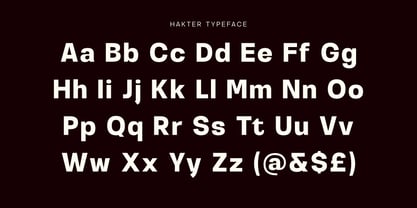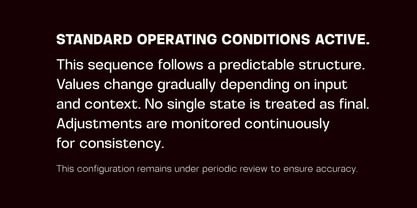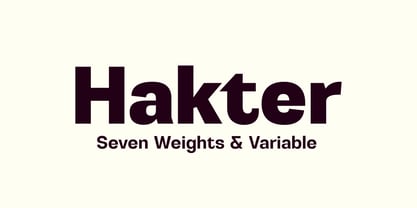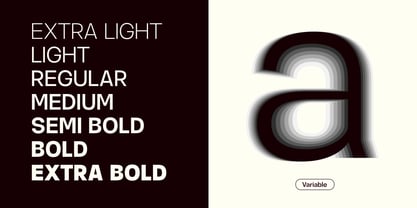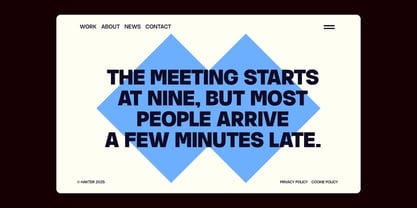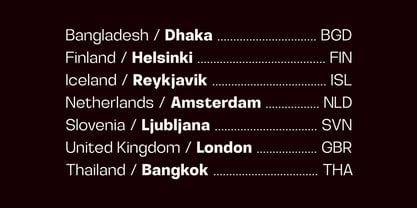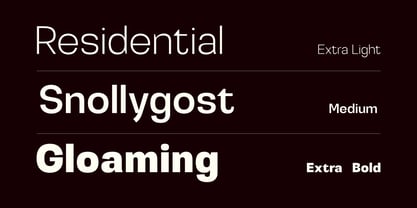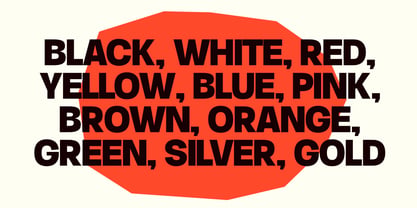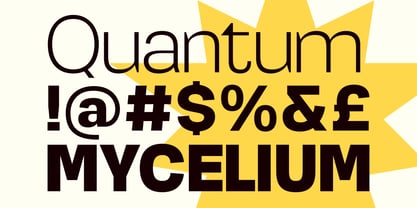
Hakter
by ESEM Type
The Hakter Font Family was designed by Szymon Mandziarz and published by ESEM Type. Hakter contains 8 styles and family package options. More about this family
Hakter is a clean, modern grotesk sans serif typeface that combines functional minimalism with a strong visual presence. Designed with precision and balance, it works equally well in large headlines and smaller text applications. The typeface features seven carefully crafted weights, from Extra Light to Extra Bold, providing a wide typographic range for flexible design systems. In addition, Hakter includes a variable font, allowing smooth weight adjustments and full control in responsive and digital environments. With over 500 glyphs, Hakter supports multiple languages and professional typographic needs, including extended Latin characters, symbols, punctuation, and diacritics. Its neutral yet confident character makes it ideal for modern brands, websites, posters, presentations, and editorial layouts. Hakter is designed to feel contemporary, reliable, and timeless — a versatile tool for designers who value clarity and strong visual rhythm. Font Features - 7 Weights: Extra Light, Light, Regular, Medium, Semi Bold, Bold, Extra Bold - Variable Font included - Over 500 glyphs - Extended Latin language support - Professional kerning and spacing - Clean grotesk construction - Optimized for print and digital use Hakter is perfect for: - Branding & visual identity - Headlines & posters - Editorial & magazine design - Web & UI design - Presentations & marketing materials - Logos & modern layouts
Designers: Szymon Mandziarz